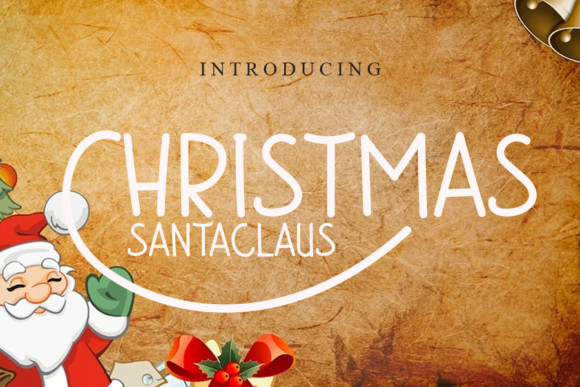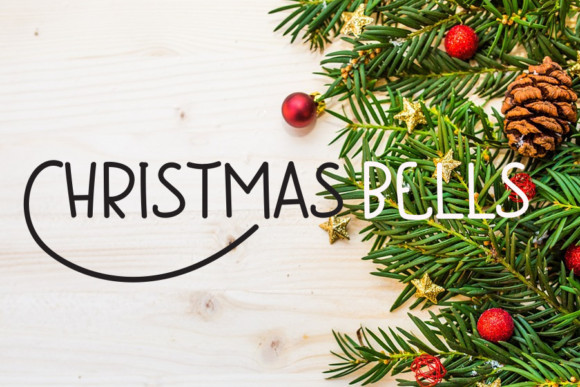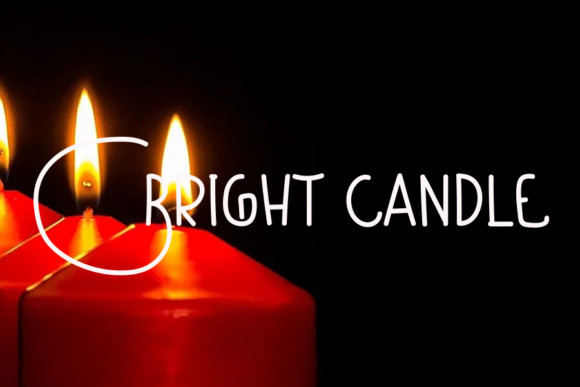
Christmas Santaclaus Font
Christmas Santaclaus is a simple natural and down to earth handwritten font. It is ideal for holiday-themed greeting cards and for any crafting project that requires a romantic touch.